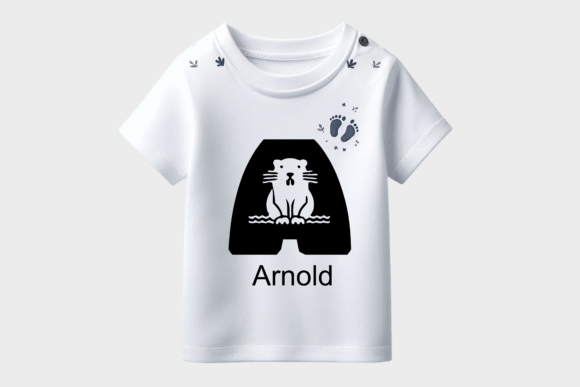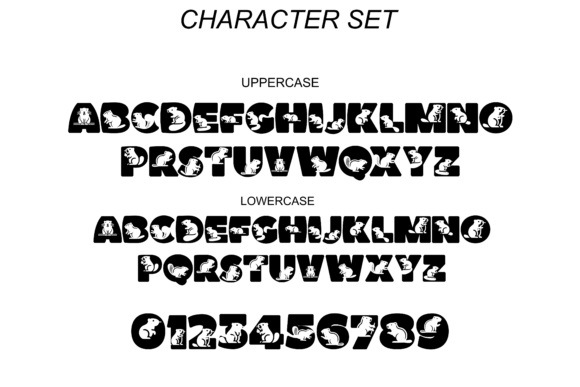
The Ultimate Design Companion: Unlocking the Power of Beaver Font
Have you ever found yourself staring at a blank page, waiting for that elusive spark of creativity to strike? For designers, this moment can be both exhilarating and intimidating. But what if you had a secret ally to help you bring your ideas to life? Enter the Beaver Font, a typographic masterpiece that has been designed to unleash your full creative potential.
With its unique blend of precision and randomness, the Beaver Font is the perfect tool for designers looking to add a touch of magic to their work. Whether you’re crafting a logo, designing a brochure, or building a website, this exceptional font will help you convey your message with style and sophistication. Its versatility and charm make it a valuable addition to any designer’s toolkit, ensuring that your creations stand out from the crowd.
Beaver Font Key Features
- Unique Characteristics: The Beaver Font features a unique blend of modern and rustic elements, with a distinctive beaver-inspired design that adds a touch of whimsy to any project.
Beaver Font Review
I recently had the chance to work with the Beaver Font, and here’s my honest take on it.
- The font has a unique, rustic feel to it, making it perfect for outdoor-themed projects or anything that needs a touch of earthiness.
- The font is highly customizable, with a wide range of weights and styles to choose from.
- The font is also relatively legible, even at smaller font sizes.
- The font may be a bit too rustic for projects that require a more modern or sleek look.
- The font’s unique feel may not be suitable for all types of content, such as technical or academic writing.
- The font’s high customizability can also make it overwhelming to choose the right weight and style for a project.
Overall, the Beaver Font is a solid choice for projects that need a rustic or outdoor feel. While it may not be suitable for all types of content, its unique look and high customizability make it a great option for designers looking to add some personality to their work.
Tips for Getting the Most Out of Beaver Font
Beaver Font is a great choice for outdoor-themed designs, children’s books, and rustic-inspired graphics. To get the most out of it, experiment with different font sizes, colors, and styles to create a unique look. You can also pair Beaver Font with other fonts to create a visually appealing combination.
Beaver Font is commonly used in outdoor-themed designs, such as park signs, camping gear labels, and nature-inspired graphics. It’s also a popular choice for children’s books, educational materials, and rustic-inspired packaging.
Alternatives to Beaver Font for Designers
Playfair Display is a luxurious, high-end serif font ideal for use in branding, invitations, and luxury products. It features elegant and intricate details, making it perfect for adding a touch of sophistication to any design.
Compared to Beaver Font, Playfair Display has a more formal and elegant feel, while Beaver Font has a more rustic and natural feel. Playfair Display is suitable for high-end designs, whereas Beaver Font is better suited for outdoor or nature-inspired designs.